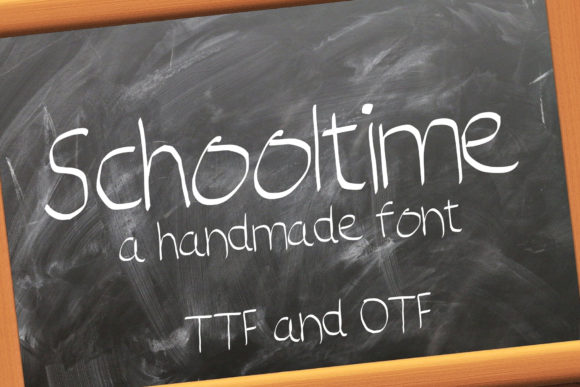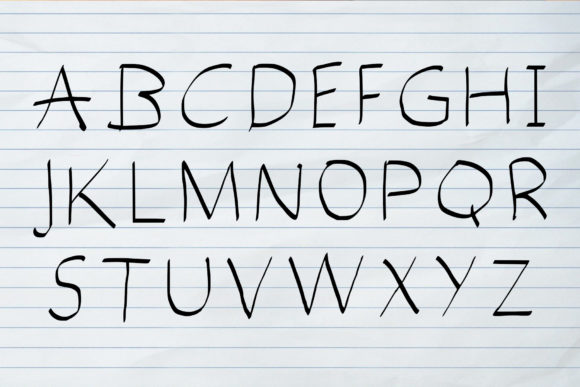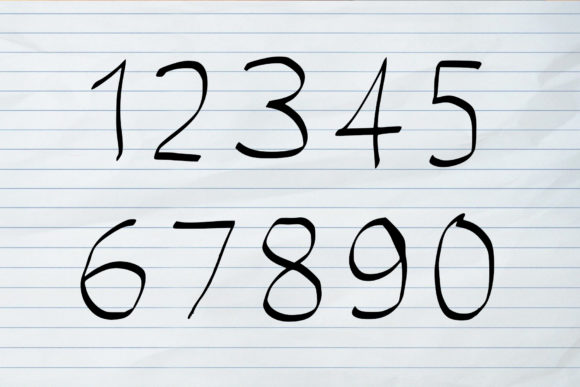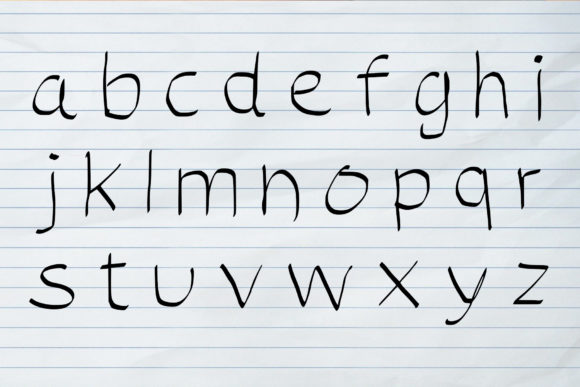
Schooltime Font
About Schooltime Font
Schooltime is a simple font that feels like the handwriting of a student. Get creative with its unique look, and use it to brighten up any kids and school project!